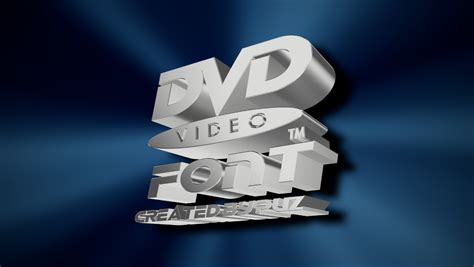
Dvd Logo Font. Archive of freely downloadable fonts. This is a font based off of the dvd video logo, if you like it please.
DVD Video Font by PuzzlyLogos on DeviantArt